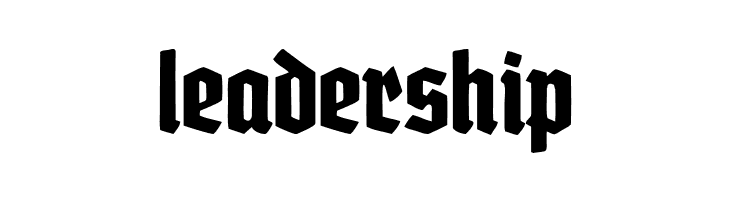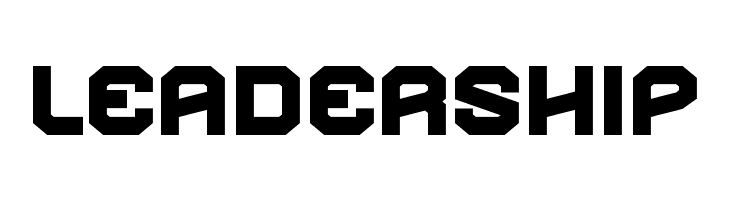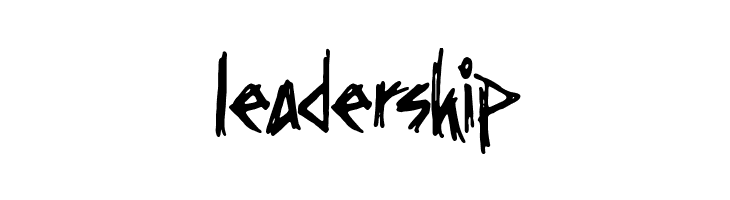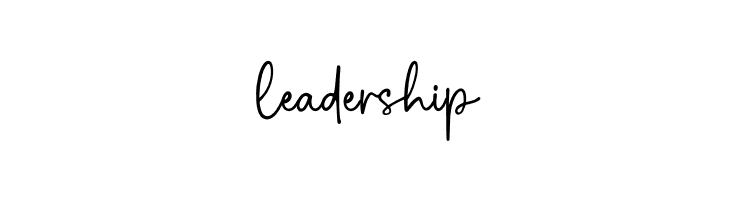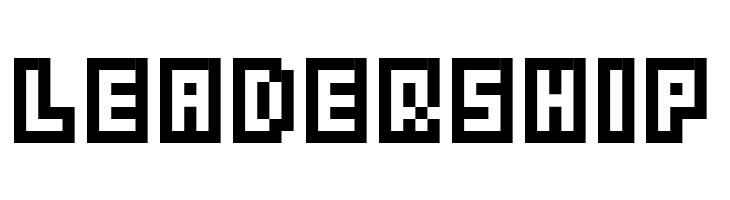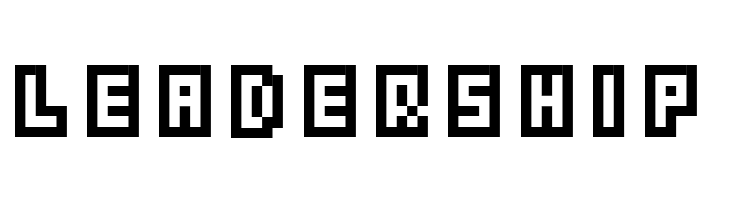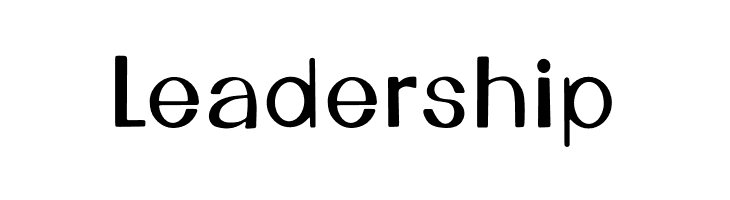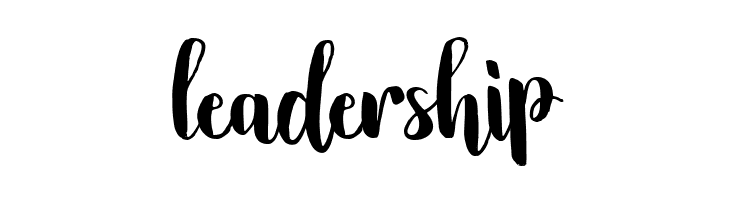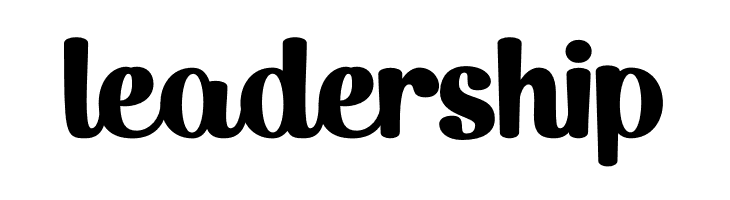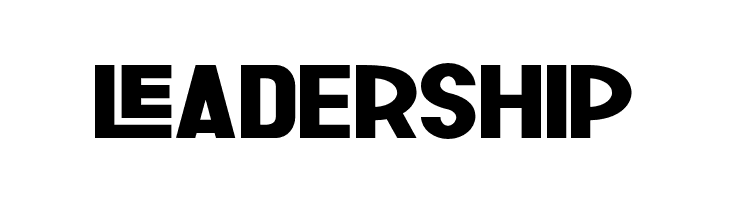
A bold, playful font with exaggerated, uneven strokes and a hand-drawn feel.
A geometric, abstract font with thin lines and angular shapes.
A bold, modern font with a geometric and impactful design.
A raw, edgy font with jagged, irregular strokes and a rebellious flair.
A bold, playful font with rounded edges and a friendly appearance.
A playful, handwritten font with flowing, interconnected letters.
A bold, brush-style font with a raw, hand-painted look.
A bold, expressive handwritten font with flowing, connected letterforms.
A lively, handwritten font with tall, narrow letters and a playful, energetic style.
A bold, distressed font with a hand-drawn, rugged appearance.
A flowing, cursive font with elegant, interconnected strokes.
A cursive, handwritten font with elegant, flowing strokes.
A dynamic and flowing script font with elegant cursive letterforms.
A dynamic and elegant script font with a flowing, cursive design.
A bold, playful handwritten font with thick strokes and rounded edges.
A rugged, hand-drawn font with a gritty, urban aesthetic.
An elegant, flowing script font with a handwritten style.
A bold, geometric font with angular lines and a modern aesthetic.
A bold, geometric font with strong, uniform letterforms.
A bold, geometric font with a modern and impactful design.
A bold, geometric font with a condensed and impactful style.
A bold, dramatic Blackletter-style font with sharp, angular lines and intricate detailing.
A bold, angular font with a historical and dramatic style.
A bold, blackletter font with sharp, angular lines and a Gothic aesthetic.
A bold, blackletter-style font with sharp, angular lines and a gothic feel.
A playful, rounded font with a hand-drawn, casual style.
A modern, clean sans-serif font with bold, geometric uppercase and consistent lowercase letters.
A bold, hand-drawn font with an expressive, graffiti-like style.